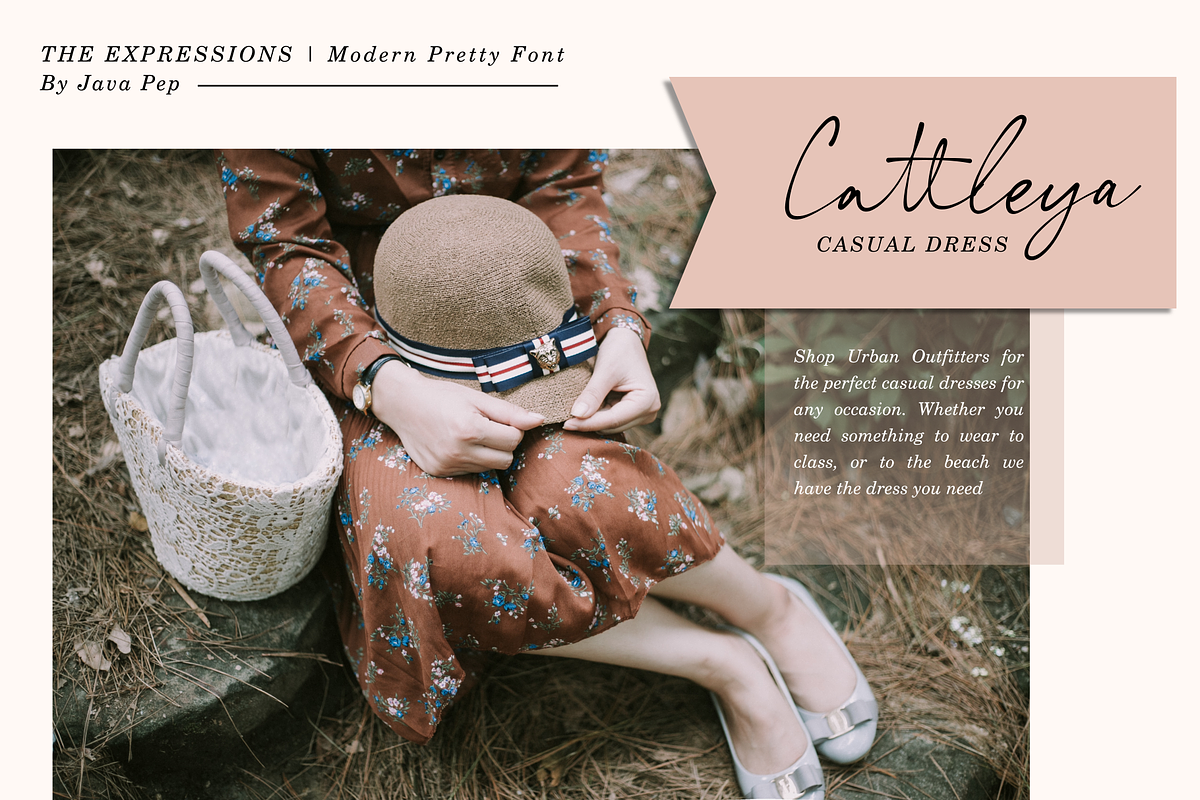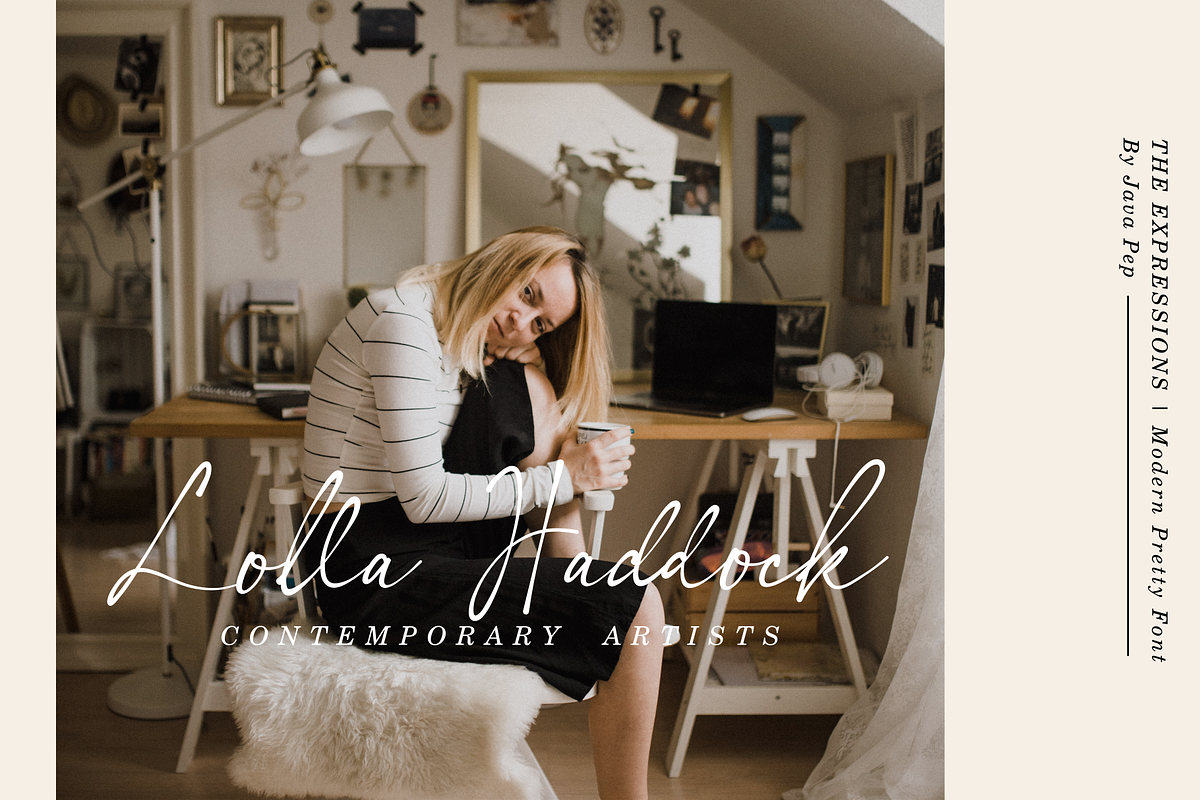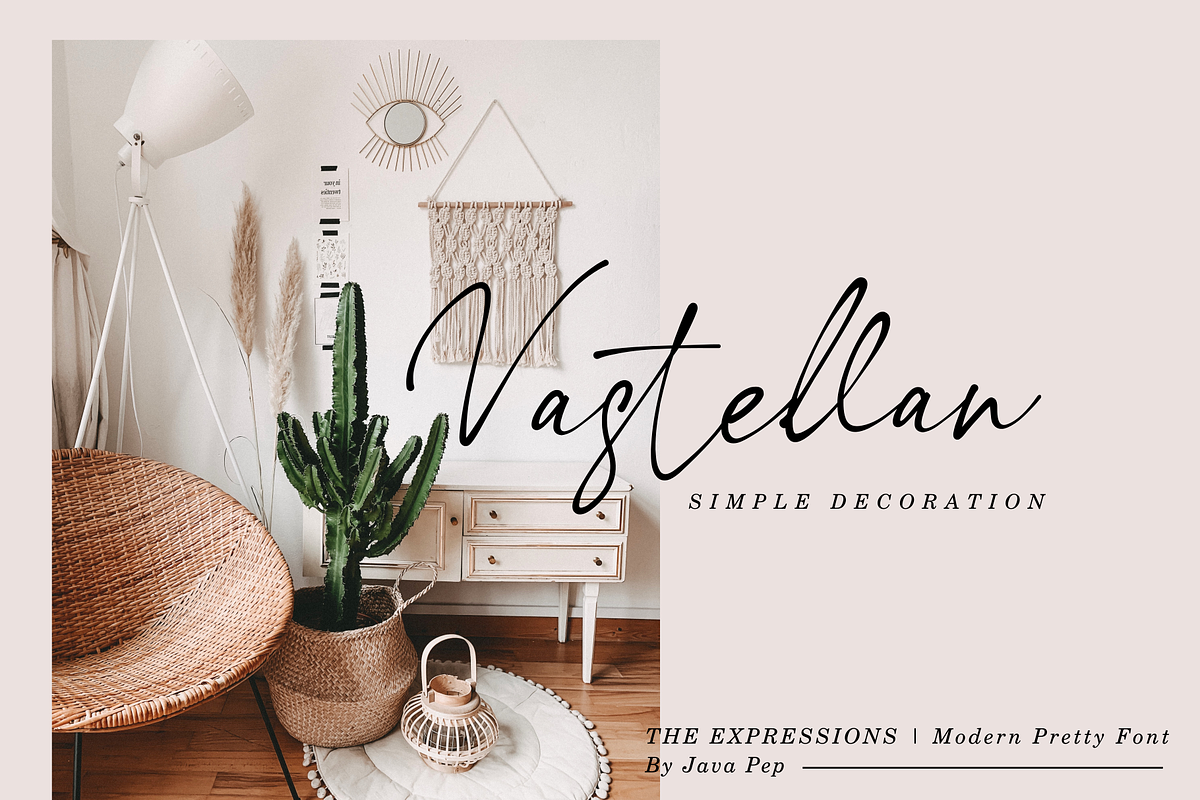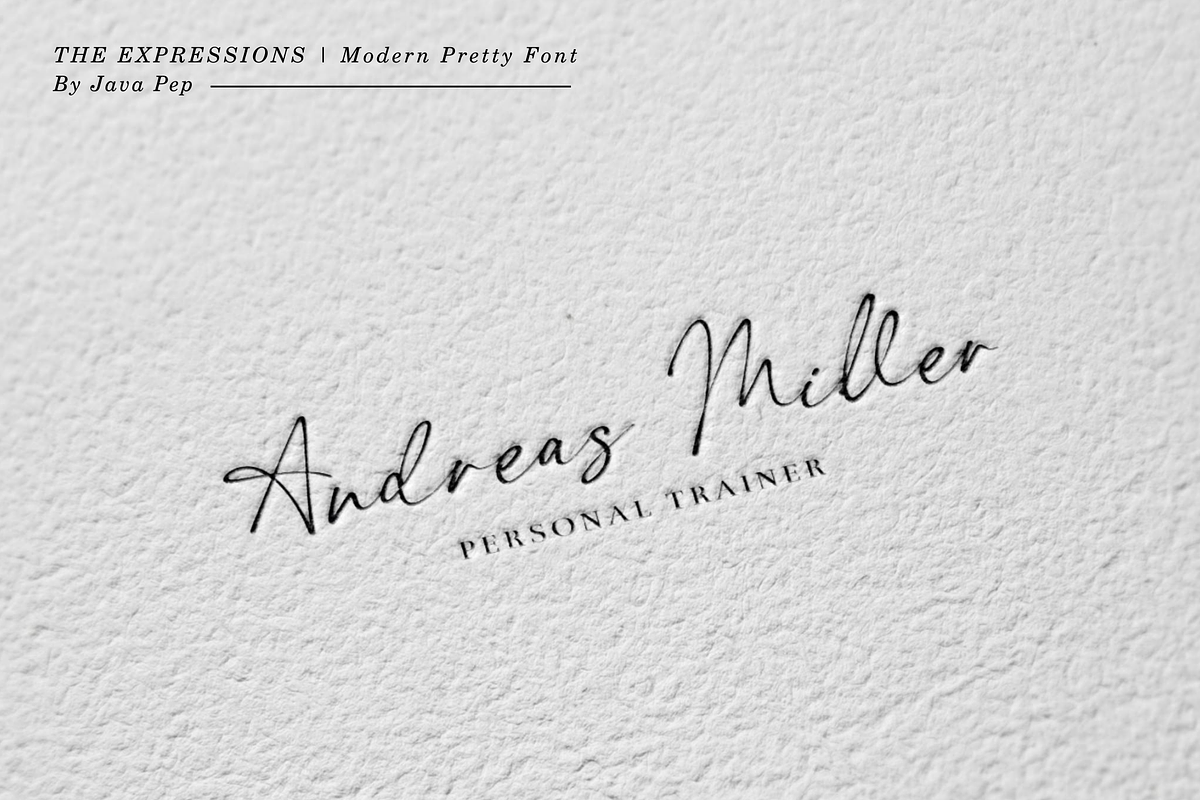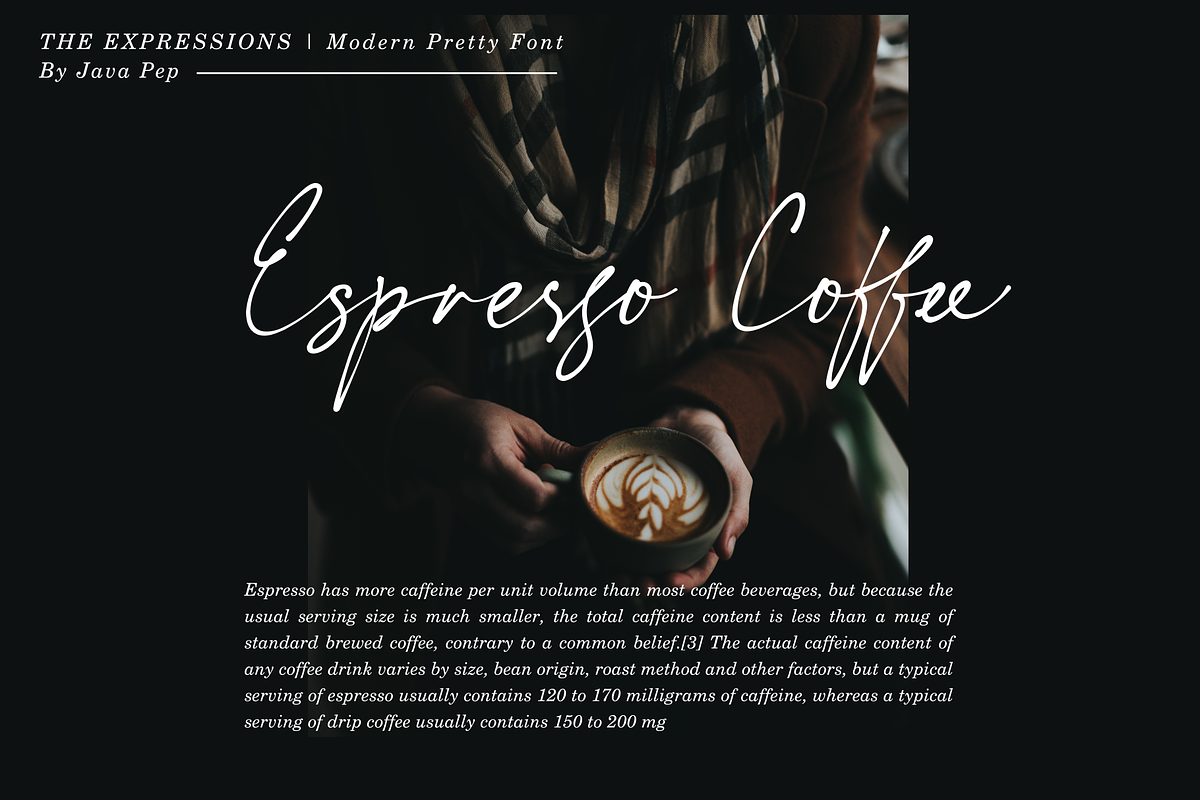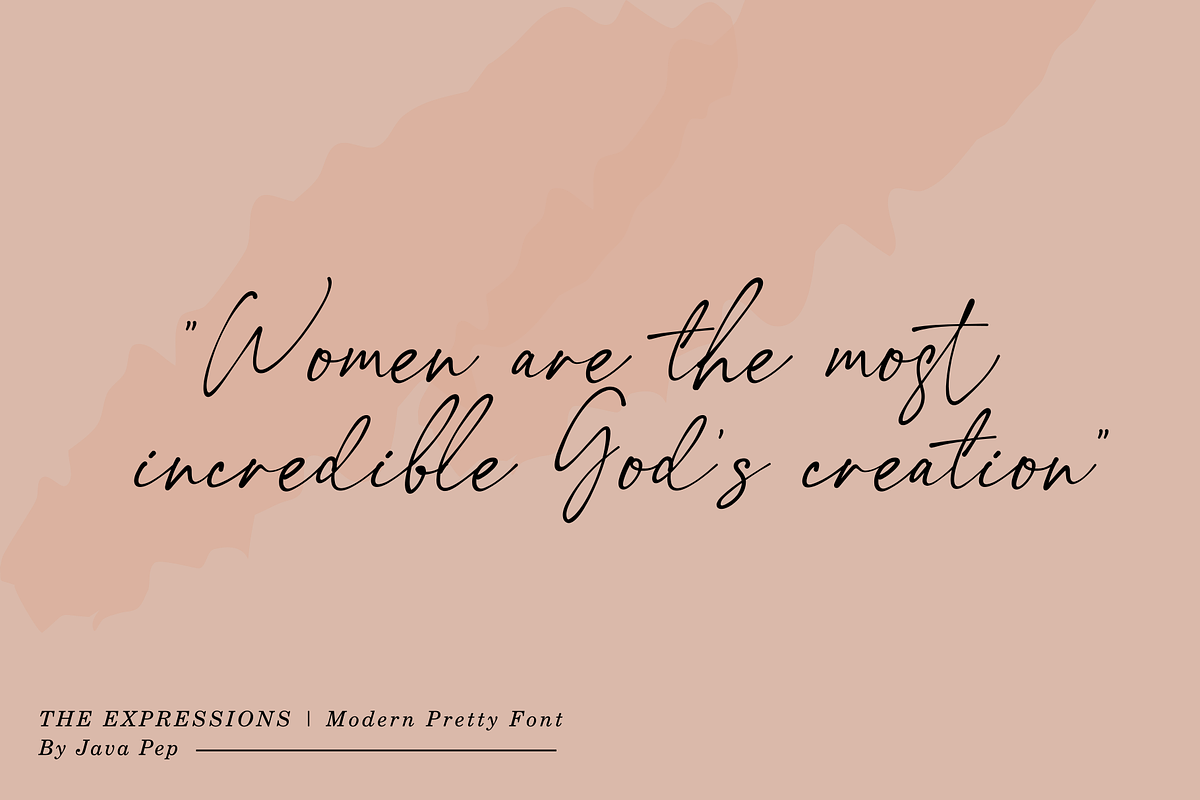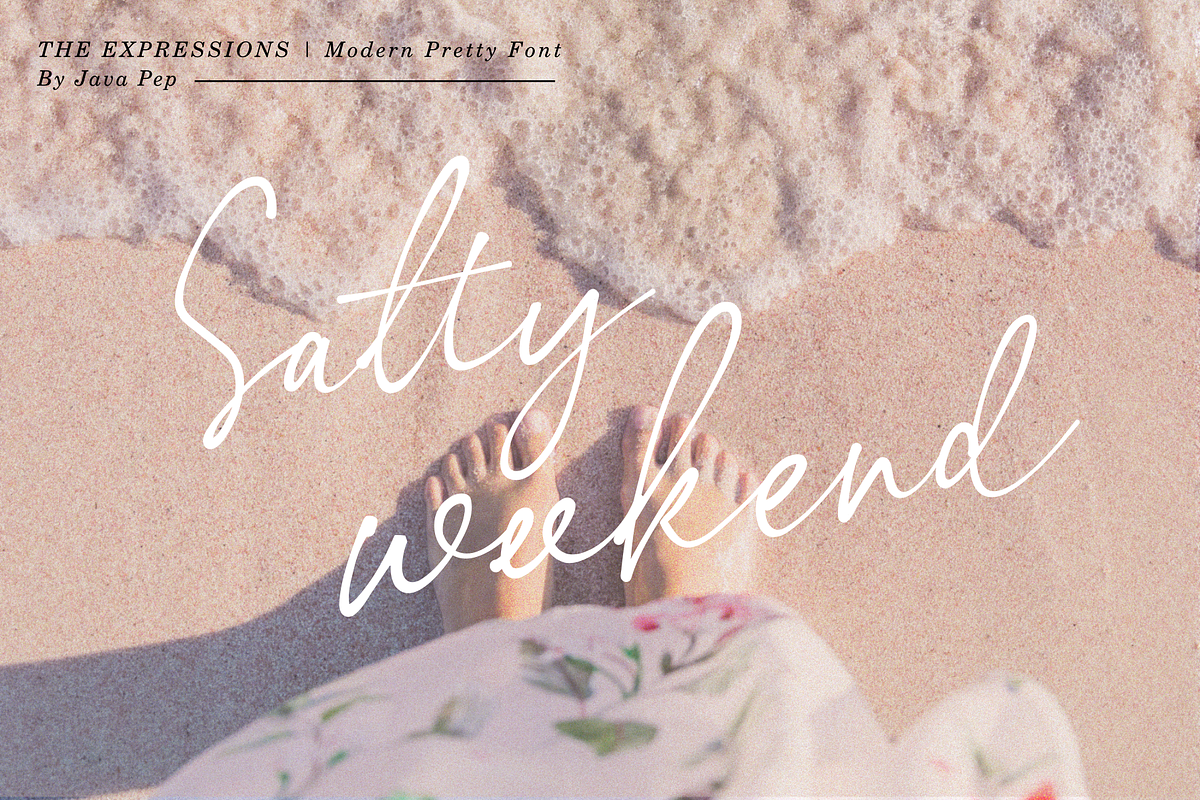
The Expressions / modern pretty font
Proudly present newest font inspired by handwriting style is called The Expressions. This font comes with modern and pretty looks that will express your design more standout and elegant. Let's express your mind with the expressions font
The Expressions / modern pretty font by Java pep fits naturally into Branding, posters, packaging, typography.